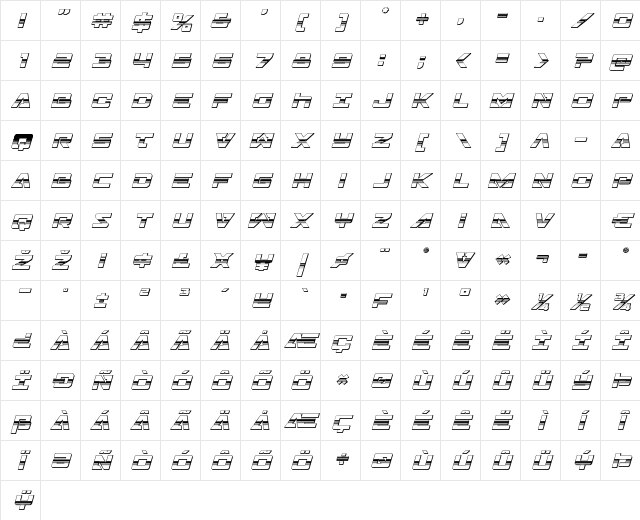
Trans-America Platinum Italic Italic
Design Context for Trans-America Platinum Italic
Trans-America Platinum Italic is a composed and adaptable typeface that performs quietly and consistently across a wide range of design contexts. The slanted form adds forward momentum and visual energy.